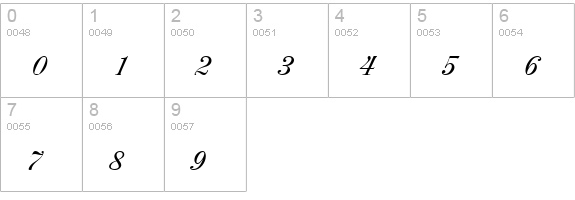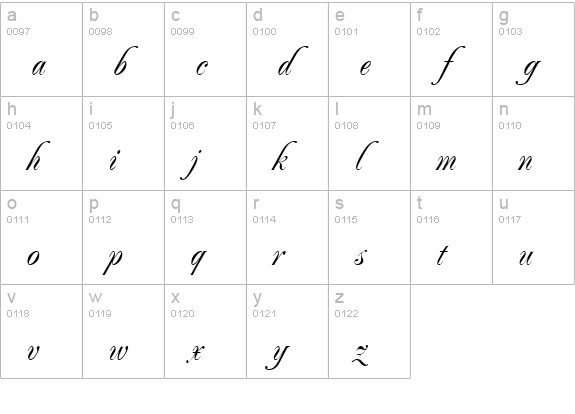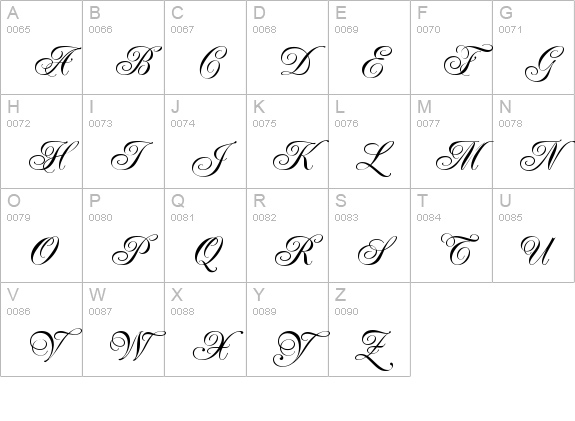
Majestic Font Details
Introducing Majestic, a breathtakingly elegant font that exudes sophistication and charm. With its delicate curves and graceful letterforms, Majestic captivates the eye and adds a touch of class to any design. From wedding invitations to luxury branding, this font effortlessly elevates your projects to new heights. But what sets Majestic apart from the rest? It's not just its aesthetic beauty, but also the fact that it is freely available for download at FontsMarket.com. Yes, you heard that right – Majestic is a font that you can enjoy without any cost. Now you can add a touch of opulence to your designs without breaking the bank. Whether you're a professional designer or a creative enthusiast, Majestic offers versatility and style that will leave a lasting impression. Its timeless appeal and legible letterforms make it suitable for a wide range of applications, from print to digital media. With Majestic, you have the freedom to bring your visions to life. Download Majestic today from FontsMarket.com and unlock a world of possibilities. Let this font be your creative companion, guiding you towards stunning designs that leave a lasting impact. Experience the beauty of Majestic and see how it transforms your projects from ordinary to extraordinary.